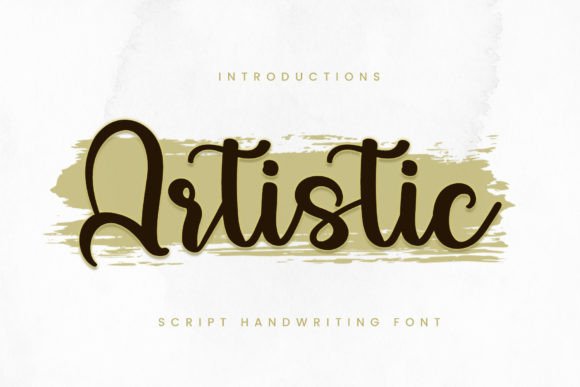
The Magic of Artistic Font: Elevating Your Designs with Elegance
I’ll never forget the time I was working on a DIY project for a client’s wedding invitation. I had the perfect design concept, but something was missing – the right font. I scoured the internet, tried countless combinations, but nothing seemed to fit. That’s when I stumbled upon the Artistic font, and it was like magic! ✨ The elegant, handwritten strokes instantly elevated my design, and the client loved it. In this article, I’ll share with you why Artistic font has become a staple in my design toolkit and how you can make the most of it.
An Honest Review of Artistic Font
- ✨ Elegant and sophisticated: Artistic font adds a touch of luxury to any design.
- ✅ Highly versatile: Perfect for Instagram posts, calligraphy scripts, DIY projects, and more.
- 💫 Unique character: The font’s handwritten strokes give it a personal, artistic feel.
- 🎨 Great for creative projects: Whether you’re a designer, crafter, or hobbyist, Artistic font will inspire your creativity.
While Artistic font is amazing, there are a few things to keep in mind: 🤔
- ⚠️ Limited use in formal designs: Artistic font is best suited for creative, informal projects.
- ⚠️ May not work well in small sizes: The font’s intricate strokes can become lost in smaller sizes.
A Practical Guide to Using Artistic Font
- Experiment with OpenType features, such as glyphs and stylistic alternates, to add variety to your text.
The Backstory of Artistic Font
Artistic font was created with the goal of bringing a touch of elegance to your designs. The font’s designer was inspired by traditional calligraphy and hand-lettering techniques, aiming to create a font that would be both beautiful and versatile. The result is a font that is perfect for a wide range of creative projects.
Q: What type of projects is Artistic font best suited for?
A: Artistic font is perfect for creative, informal projects such as DIY crafts, social media posts, and invitations.
Q: Is Artistic font available in different weights or styles?
A: Artistic font may come in different weights or styles, but this depends on the specific font package.